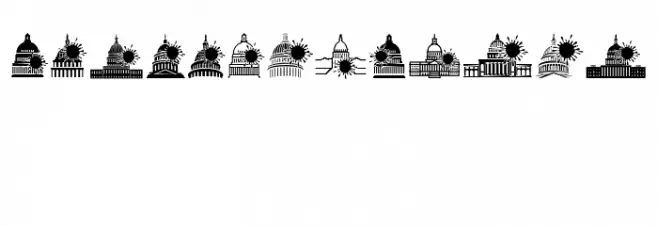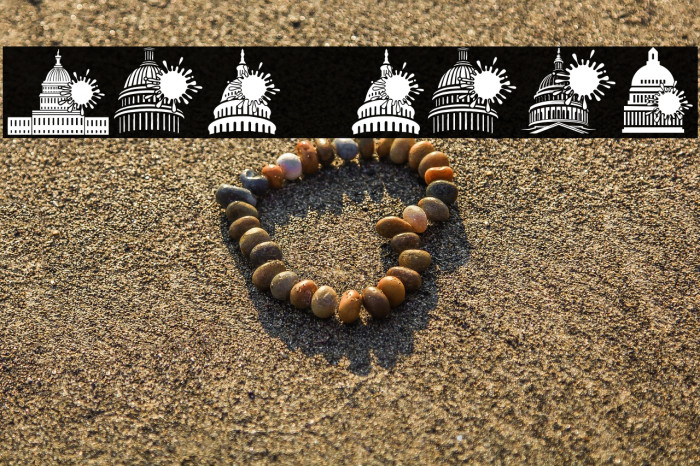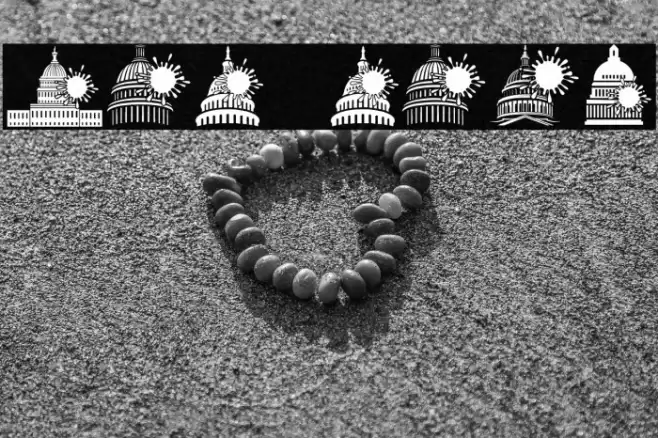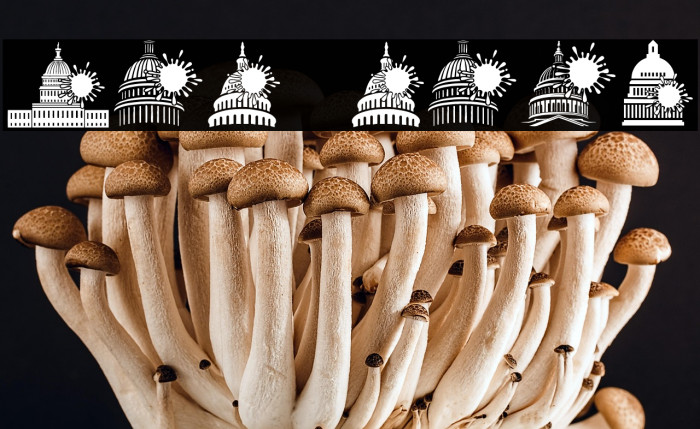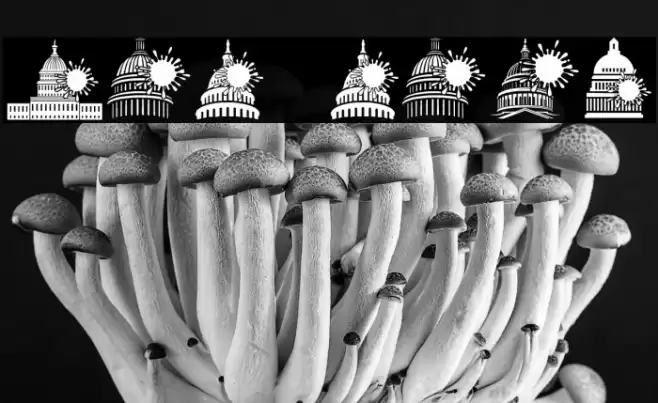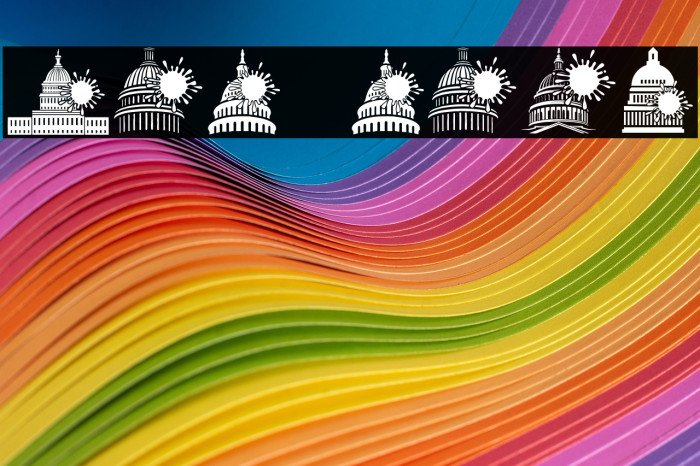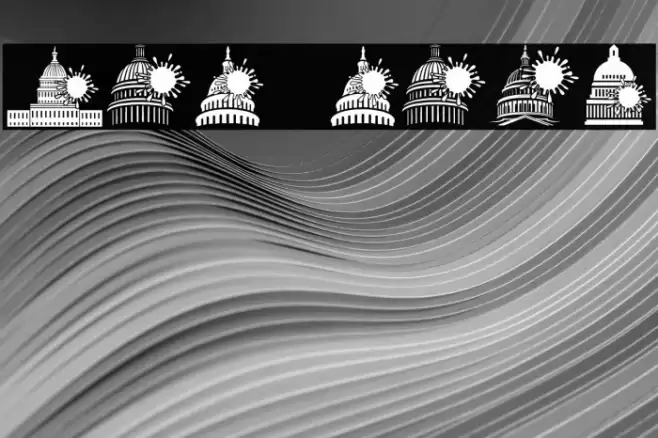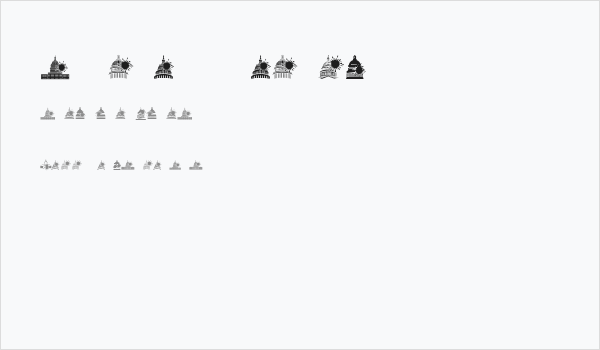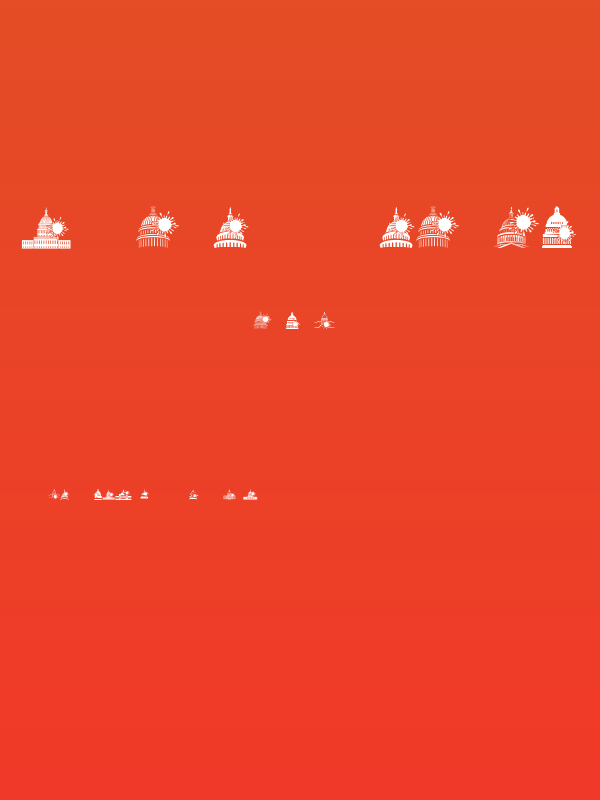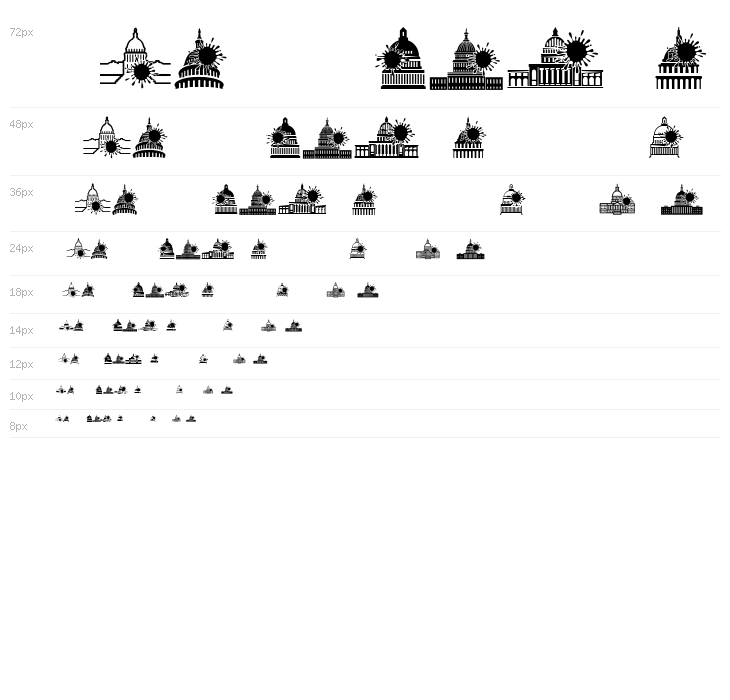
Congress Regular Font
Congress Regular Description
This is not a traditional font but rather a series of decorative icons representing various architectural elements and symbols. Each character is replaced by a unique illustration, featuring detailed and intricate designs that resemble iconic buildings and structures. The style is consistent across all characters, maintaining a uniform look that is both artistic and thematic. The illustrations are bold and clear, making them suitable for decorative purposes where a visual representation is needed instead of text.
| Use Case | Logos, Decorative borders, Themed designs |
| Proposed Projects | Ideal for themed design projects, educational materials, or decorative borders where architectural motifs are desired. |